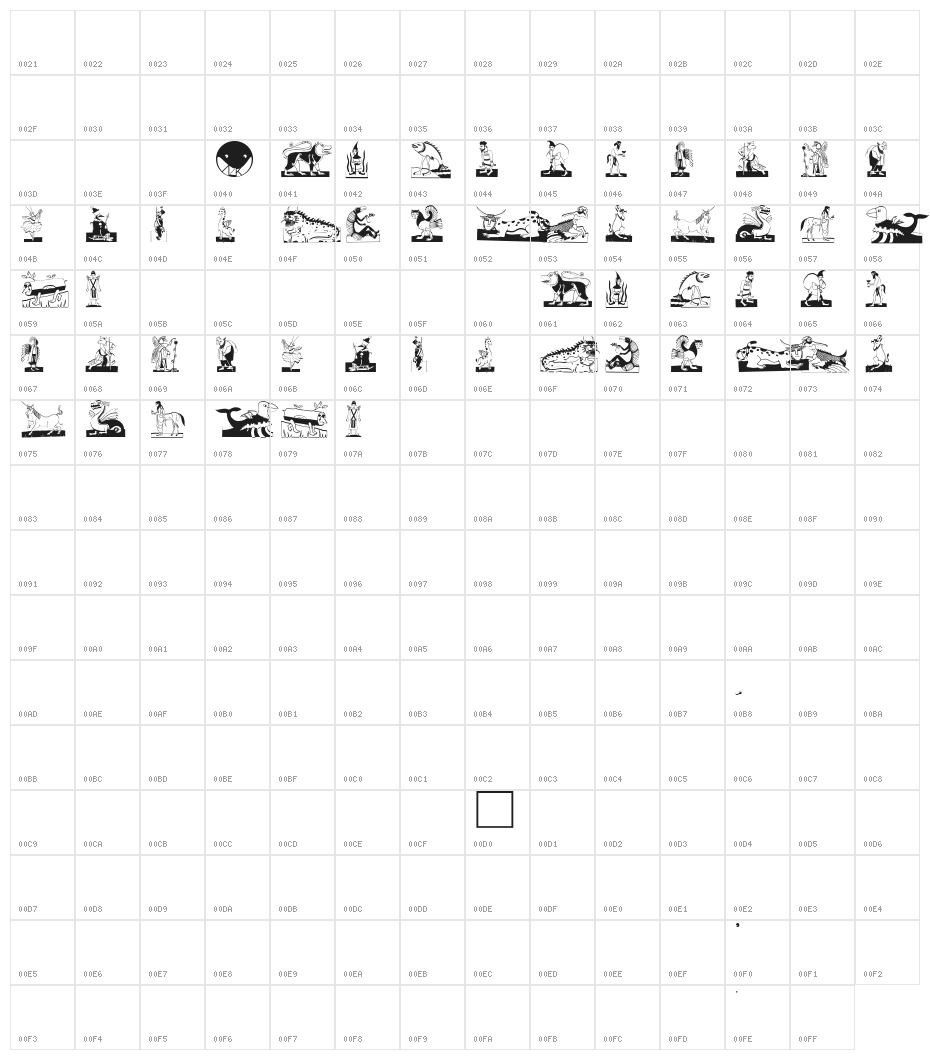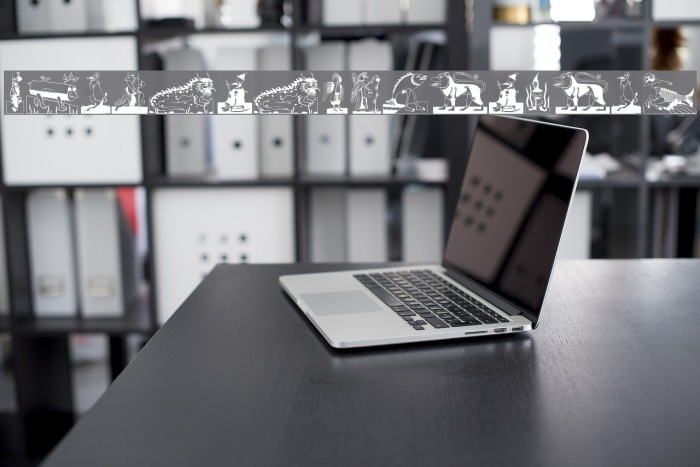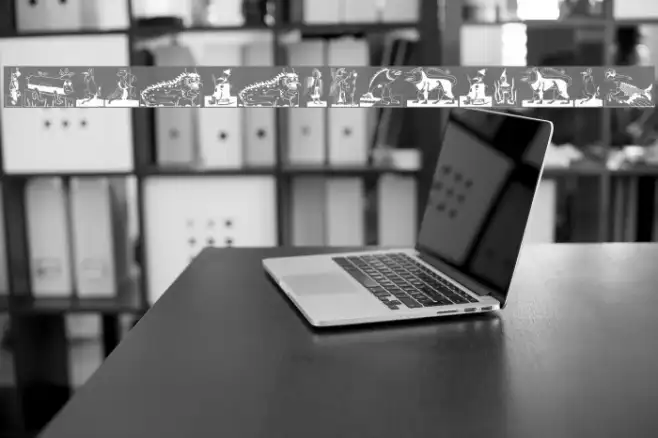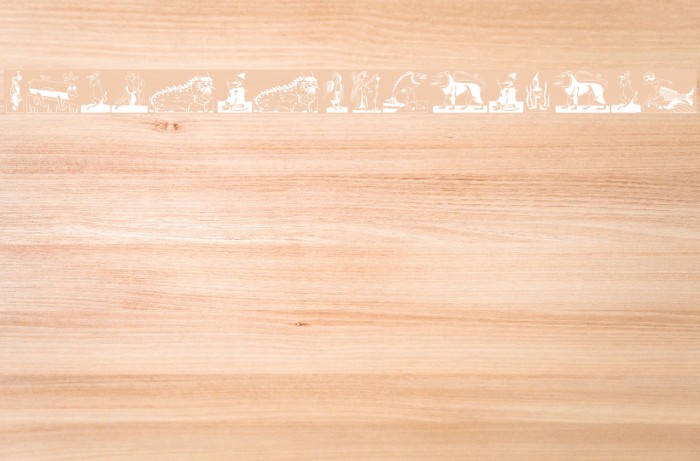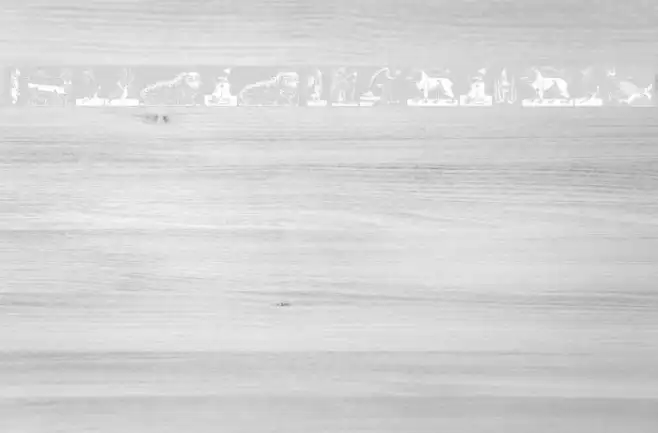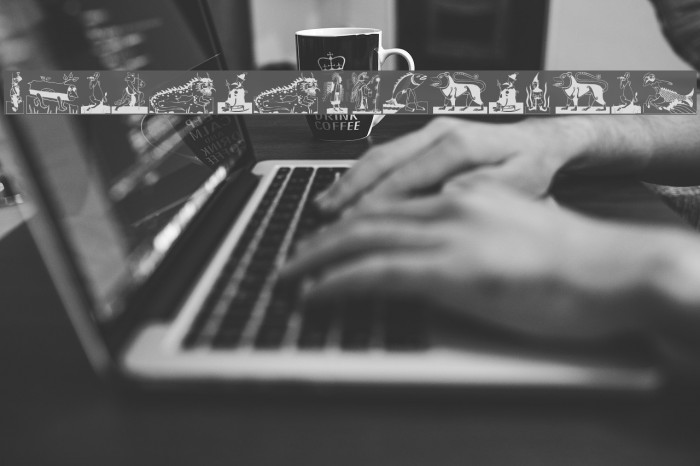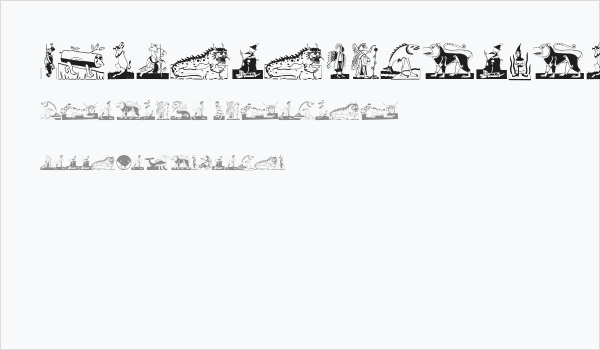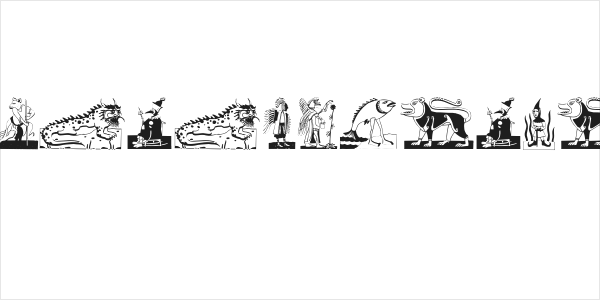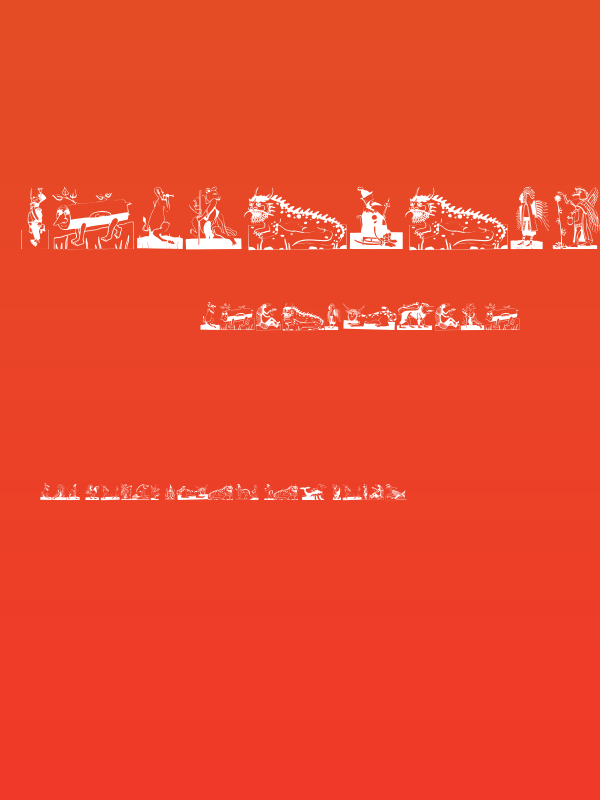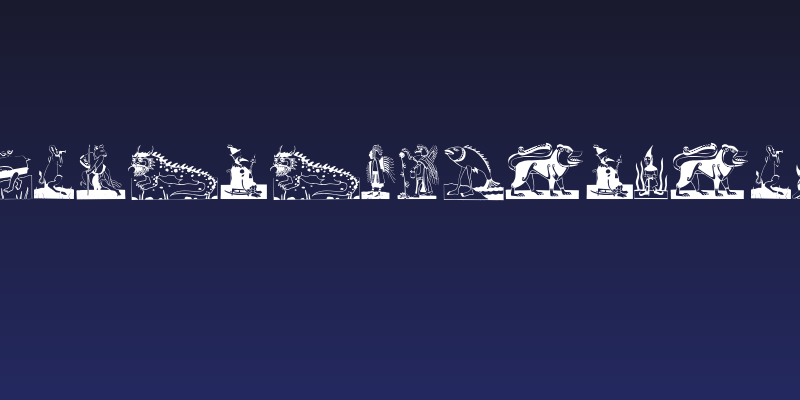
MythologicalBats Font
MythologicalBats Description
A decorative display font featuring highly detailed, mythological and fantasy-inspired illustrations in place of standard alphanumeric characters, rendered in a style reminiscent of ancient Greek pottery art with strong black and white contrast.
| Overall Style | Decorative, Mythological, Ancient |
| Use Case | Logos, Headlines, Posters, Themed graphics |
| Proposed Projects | Book covers, fantasy event posters, themed invitations, educational materials, game titles. |